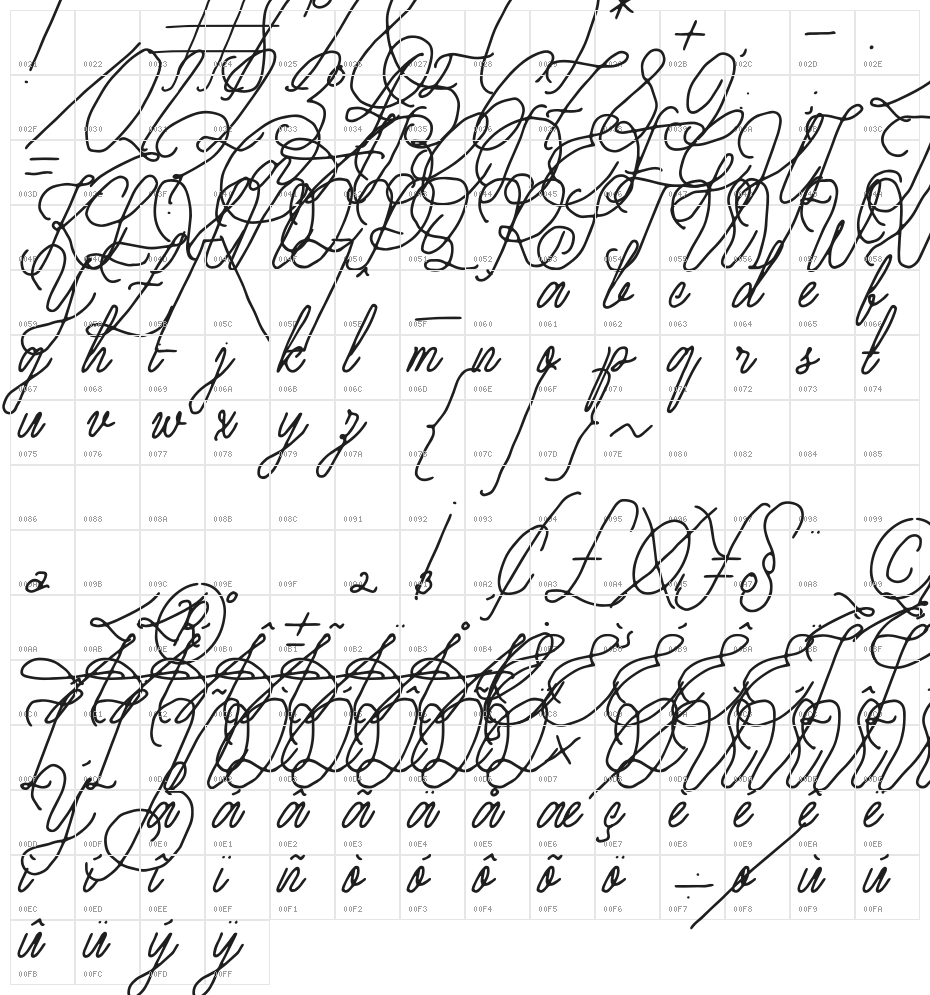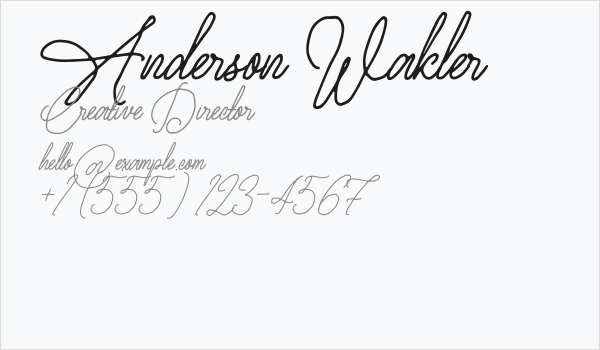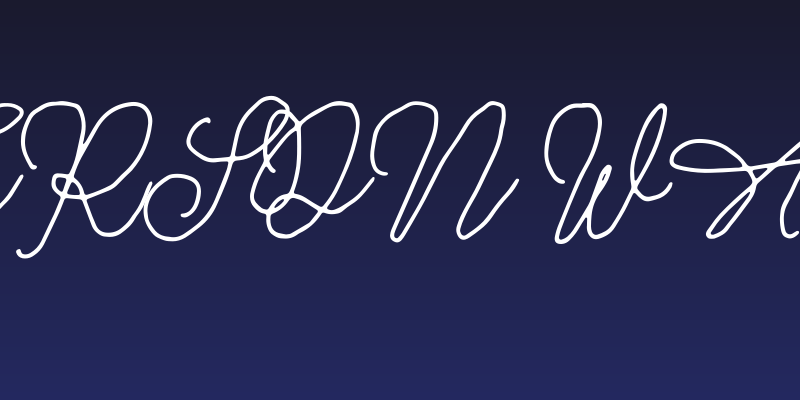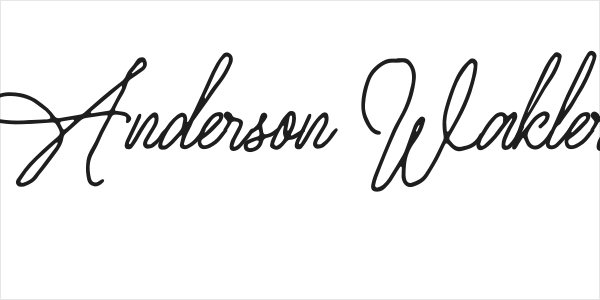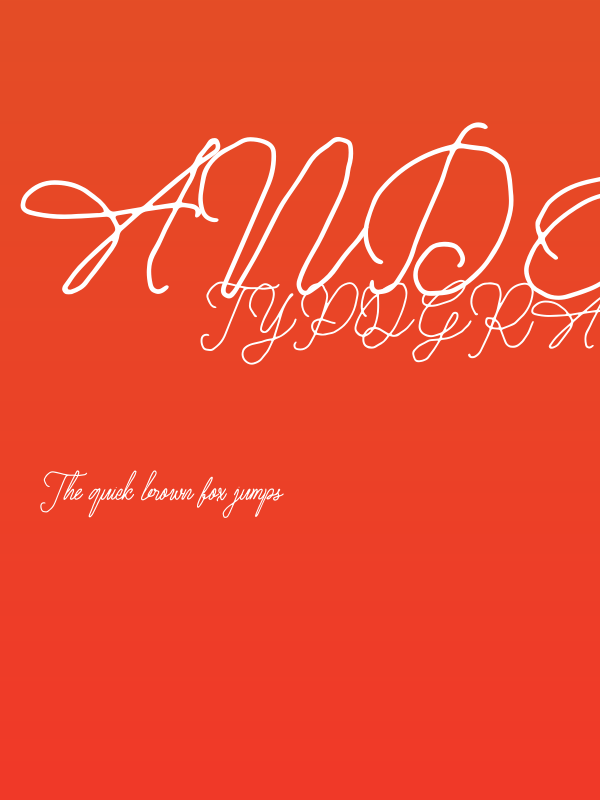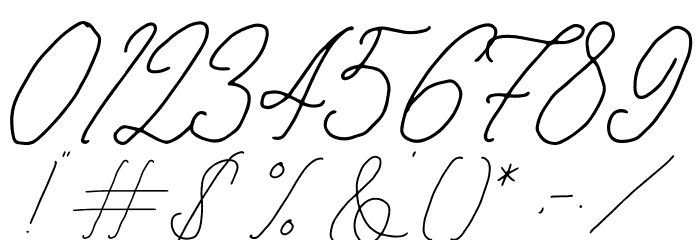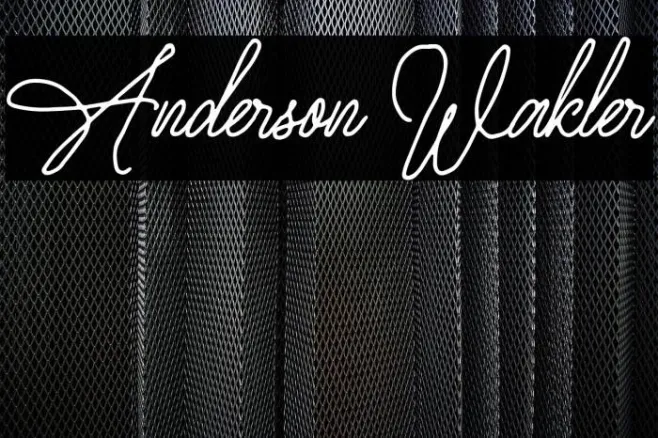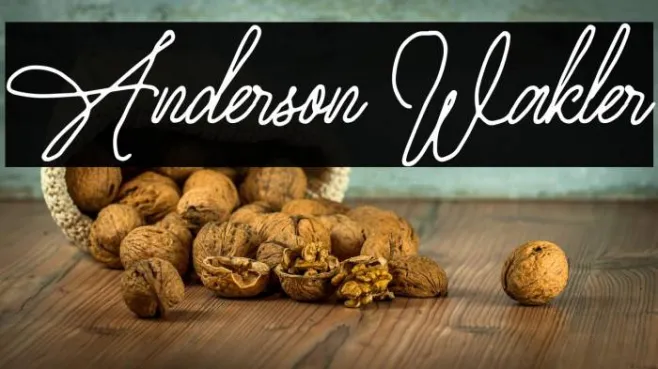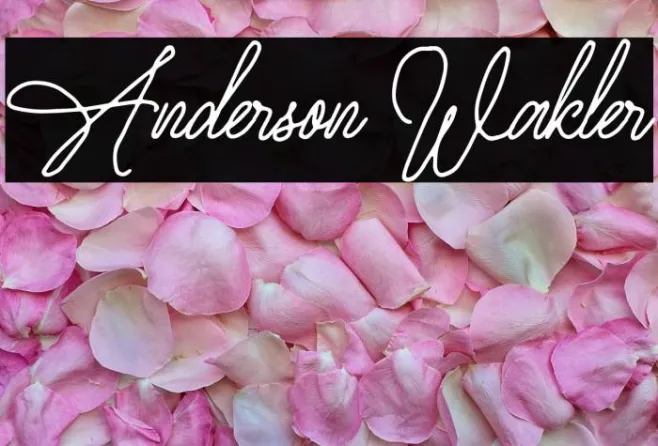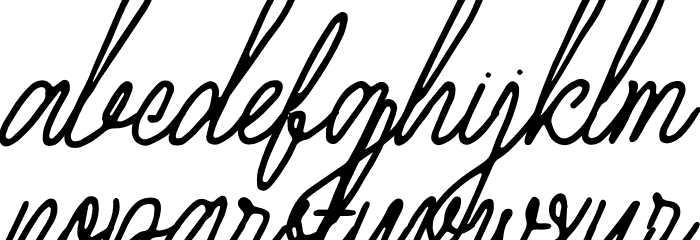
Anderson Wakler Font
Anderson Wakler Description
This elegant script font features a flowing, cursive style with a sophisticated and graceful appearance. The uppercase letters are delicately connected, creating a seamless and fluid look, while the lowercase letters maintain a consistent slant and smooth curves. The numerals and special characters complement the overall aesthetic with their refined and stylish design. This font exudes a sense of elegance and formality, making it ideal for projects that require a touch of class and sophistication.
| Proposed Projects | Ideal for wedding invitations, elegant branding, formal event programs, and luxury product packaging. |